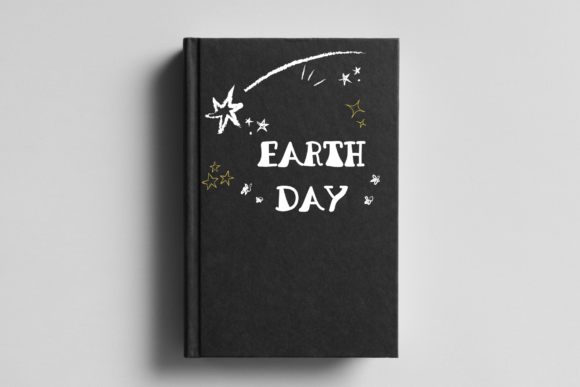
Earth Day Font: Celebrating Sustainability through Typography
Earth Day, celebrated annually on April 22nd, is a global event that aims to promote environmental protection and sustainability. As we commemorate this special day, designers and creatives around the world look for innovative ways to express their eco-friendly spirit. One such way is through the use of a unique and festive font, aptly named the Earth Day Font. In this article, we’ll explore the world of Earth Day Fonts, their uses, and how they can add a touch of eco-consciousness to your designs.
What is Earth Day Font?
Earth Day Font is a decorative font designed specifically for Earth Day celebrations. This font is perfect for taking notes, writing a diary, or creating greeting cards. However, its uses extend far beyond these traditional applications. With its eco-friendly and playful vibe, Earth Day Font can be used for a wide range of designs, including banners, content, mugs, cards, shirts, stationery, social media posts, and more!
Example of Earth Day Font in use
History of Earth Day Font
The concept of Earth Day Font emerged as a way to visually represent the eco-friendly spirit of Earth Day. While the exact origin of the font is unclear, it’s believed to have been created by designers who wanted to promote sustainability through typography. Over time, the font has evolved, with new variations and designs being introduced to reflect the growing awareness of environmental issues.
Earth Day Font is a versatile design element that can be used in a variety of contexts. Here are some ideas to get you started:
- Take notes and write diaries: Add a touch of eco-friendliness to your journaling practice with Earth Day Font.
- Create greeting cards: Design beautiful and sustainable greeting cards for friends and family.
- Make banners and posters: Use Earth Day Font to create eye-catching banners and posters that promote environmental awareness.
- Design social media posts: Add a splash of eco-friendliness to your social media posts and stories.
- Customize stationery: Create eco-friendly stationery, such as notebooks, stickers, and labels, using Earth Day Font.
- Print mugs and shirts: Design eco-friendly merchandise, such as mugs and shirts, with Earth Day Font.
Benefits of Using Earth Day Font
Using Earth Day Font in your designs offers several benefits:
- Environmental awareness: By using Earth Day Font, you’re promoting environmental awareness and sustainability.
- Uniqueness: Earth Day Font adds a touch of uniqueness to your designs, setting them apart from more traditional fonts.
- Creativity: The playful and eco-friendly vibe of Earth Day Font inspires creativity and imagination.
- Community building: Using Earth Day Font can help you connect with like-minded individuals who share your passion for sustainability.
- Experiment with colors: Try out different colors and color combinations to match your eco-friendly theme.
- Mix and match fonts: Combine Earth Day Font with other fonts to create a unique and visually appealing design.
- Keep it simple: Don’t overcomplicate your design – sometimes, simplicity is the most effective way to convey your message.
Earth Day Font Variations
Over time, designers have created various versions of Earth Day Font, each with its own unique twist:
- Handwritten Earth Day Font: A handwritten version of the font, perfect for adding a personal touch to your designs.
- Bold Earth Day Font: A bold version of the font, ideal for creating eye-catching headlines and titles.
- Italic Earth Day Font: An italic version of the font, great for adding emphasis and style to your text.
Earth Day Font is a fun and creative way to celebrate Earth Day and promote sustainability through design. With its eco-friendly vibe and versatility, this font is perfect for a wide range of applications, from greeting cards to social media posts. Whether you’re a designer, artist, or simply someone who cares about the environment, Earth Day Font is a great way to express your passion and connect with like-minded individuals.